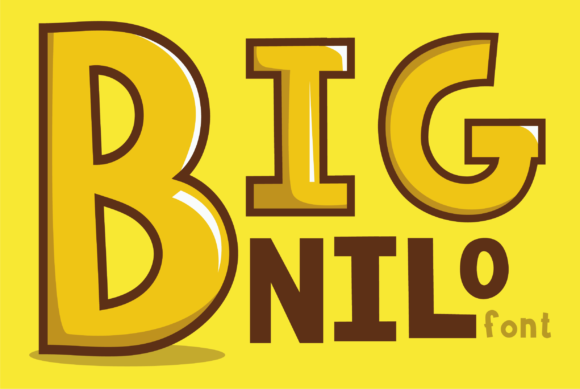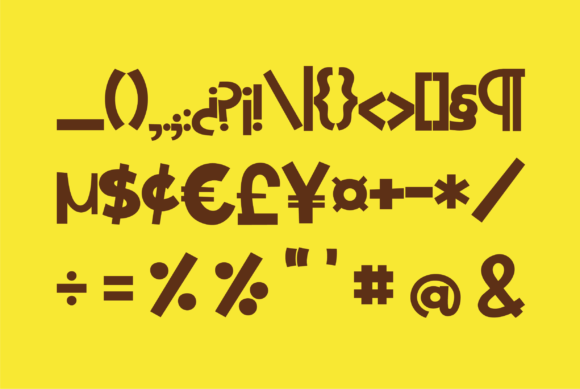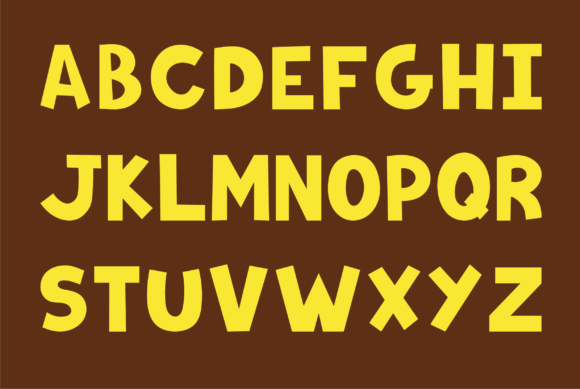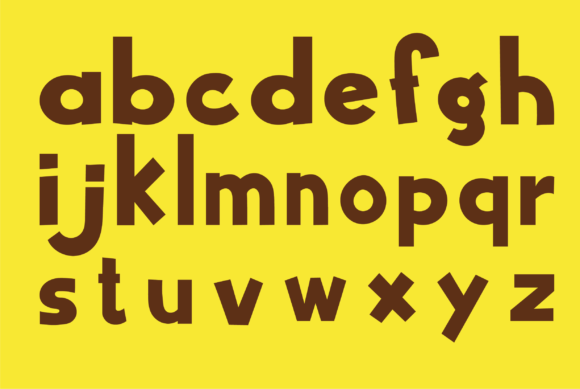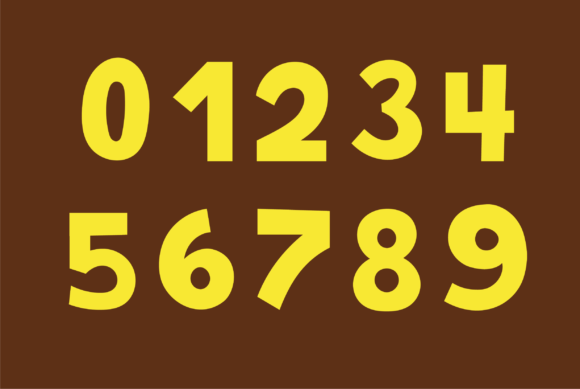
Bignilo Font
About Bignilo Font
Bignilo looks big and chunky, which makes it the perfect font for titles, headlines or any message that needs to be delivered emphatically.